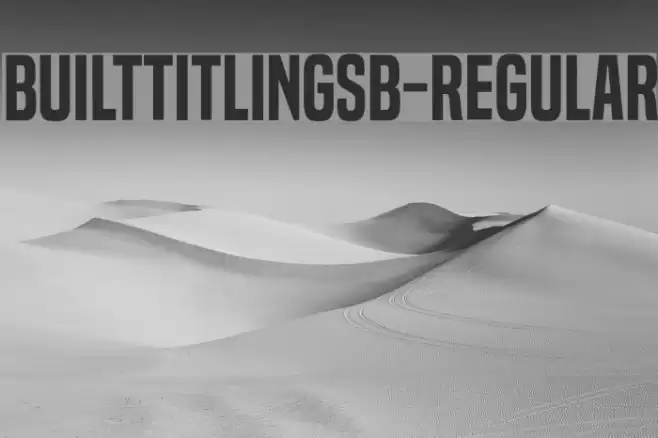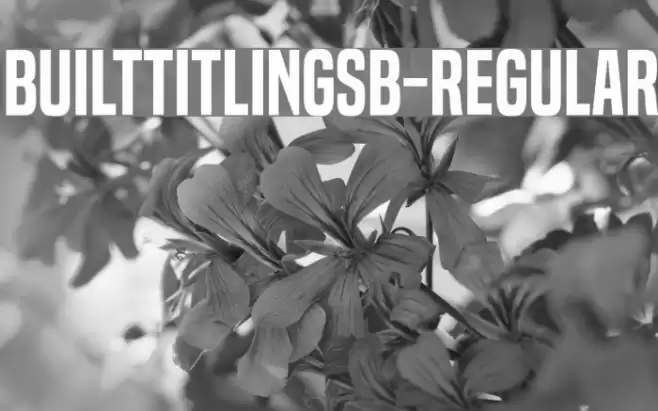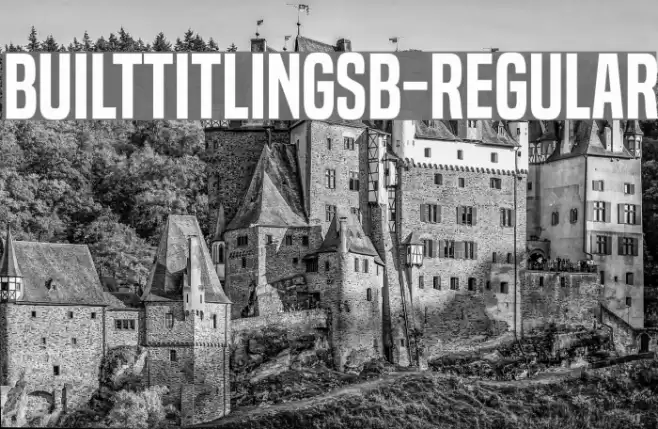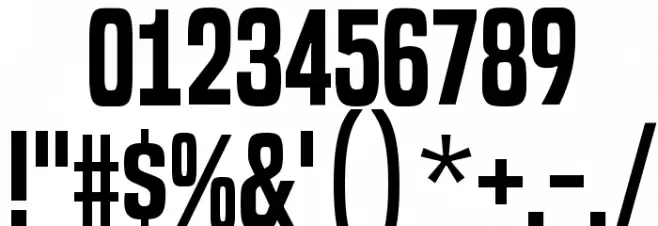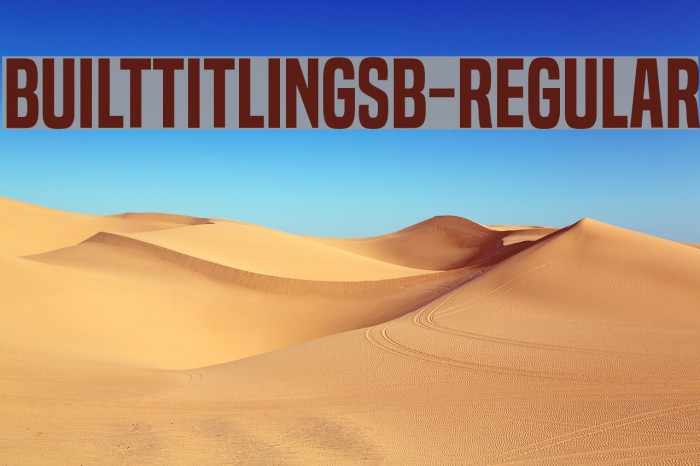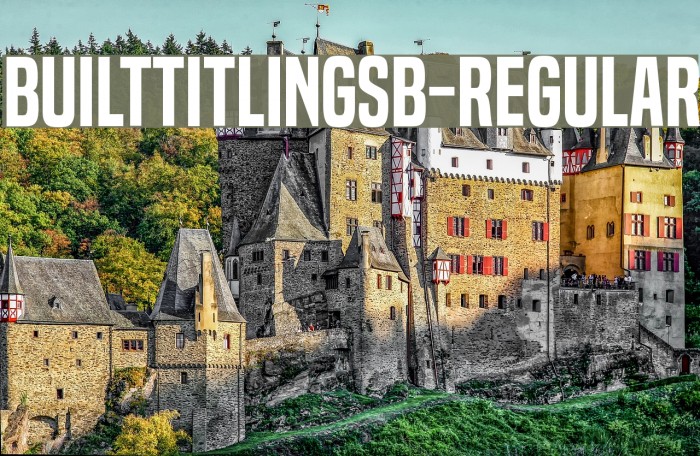
BuiltTitlingSb-Regular Font
BuiltTitlingSb-Regular Description
This font features a bold and impactful design, characterized by its strong, geometric shapes and uniform stroke widths. The uppercase letters are tall and commanding, making a statement with their solid presence. The lowercase letters maintain the same boldness, ensuring consistency across all text. Numbers are equally robust, providing clarity and emphasis. The special characters are designed to complement the overall style, with clean lines and a modern aesthetic. This font is ideal for creating attention-grabbing headlines and titles, where readability and impact are paramount.
A bold, geometric font with strong, uniform strokes for impactful headlines from Uncategorized fonts.
- Proposed Projects: Ideal for posters, banners, branding materials, and any project requiring bold, attention-grabbing text.